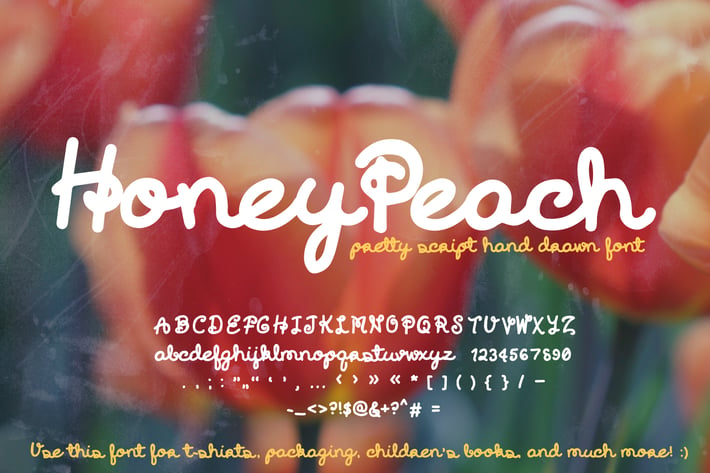
Honey Peach Script Font (Cute Handwriting Cursive)
Introducing Honey Peach Script Font, a cute handwritten cursive font.
I love fun, cute fonts, and I really enjoy aesthetic fonts that play with handwriting. I was inspired by Cricut fonts and the script handwriting in my own personal journals, when I created this cute handwriting font. I've already used this one on a Cricut t-shirt design myself, haha. I hope you enjoy it too!
Every letter was lovingly drawn by me. This cute font is dedicated to my kitty cat, Honey Peach. :)